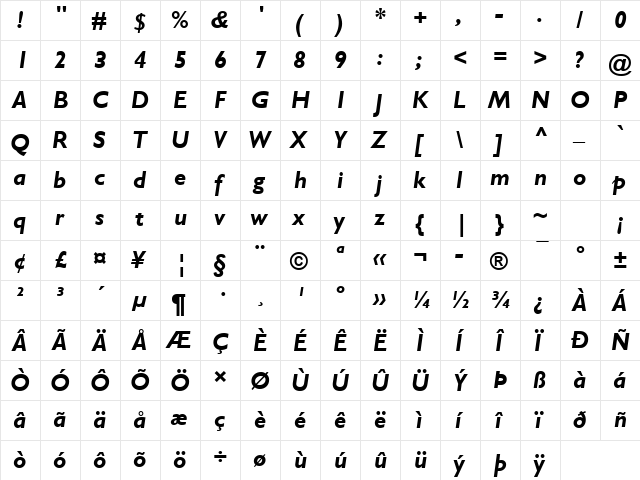
Gill Sans MT Bold Italic
| Foundry | Monotype Typography |
| Designer | Eric Gill |
Design Context for Gill Sans MT Typeface
Gill Sans MT takes a measured approach to typography — its balanced proportions and neutral character make it a reliable workhorse for both digital and print work. Its italic angle brings a sense of urgency and motion to the letterforms. The heavy weight commands attention and anchors typographic hierarchies.
Pro Tip: Try Gill Sans MT for annotation and caption copy alongside an upright companion — the contrast in angle creates a dynamic but ordered typographic system.